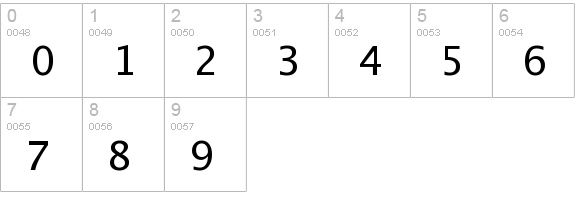
Lucida Grande is a classic and versatile sans-serif font that exudes elegance and modernity. With its clean lines and balanced proportions, Lucida Grande is a popular choice for a wide range of design projects, from websites to print materials. This font is known for its excellent readability, making it perfect for body text as well as headlines. What sets Lucida Grande apart is not only its timeless aesthetic appeal but also the fact that it is freely available for download at FontsMarket.com. This means that you can easily access and use this high-quality font in your projects without any cost. Whether you're a designer looking for a reliable typeface or a business owner in need of a professional font for branding, Lucida Grande is a fantastic choice that won't break the bank. Download Lucida Grande today and elevate your designs with this exceptional typeface.